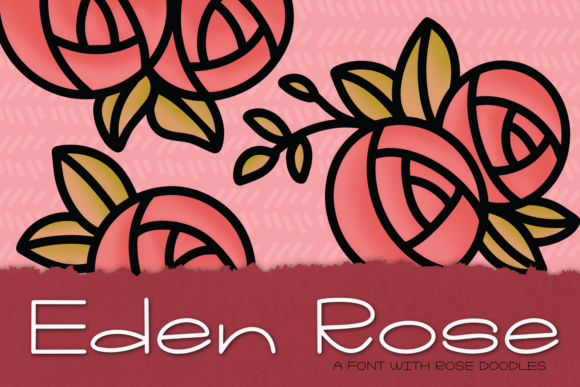
Eden Rose Font: Embrace the Beauty of Nature in Your Designs
In the world of typography, fonts play a crucial role in conveying emotions and setting the tone for various creative projects. Among the myriad of fonts available, Eden Rose stands out for its unique blend of modern simplicity and floral charm. This beautiful font is designed to bring a touch of natural elegance to your designs, making it perfect for a wide range of applications, from invitations and DIY projects to branding and more.
The Unique Charm of Eden Rose
Eden Rose is more than just a font; it’s an experience. Its delicate lines and soft curves are carefully crafted to evoke a sense of serenity and grace. The font’s design is inspired by the beauty of roses, with a modern twist that makes it versatile and easy to use. Whether you’re creating a heartfelt invitation, a sophisticated brand logo, or a playful DIY project, Eden Rose adds a touch of natural beauty that elevates your designs.
Key Features of Eden Rose Font
- Delicate Lines and Soft Curves: The font’s design is characterized by its gentle lines and curves, which give it a soft, elegant feel.
- Modern Simplicity: Despite its floral inspiration, Eden Rose boasts a modern simplicity that makes it suitable for a wide range of design projects.
- Bonus Rose Doodles: The package includes bonus rose doodles that can be used to add an extra touch of natural charm to your designs.
- Versatile: Eden Rose is perfect for various applications, including invitations, DIY projects, branding, and more.
Perfect for Heartfelt Designs
Eden Rose is designed to help you create heartfelt designs that resonate with your audience. Its elegant and playful vibe makes it ideal for projects that require a personal touch. Here are some ways you can use Eden Rose to create beautiful designs:
Invitations
Eden Rose is perfect for creating stunning invitations for weddings, baby showers, and other special occasions. The font’s delicate lines and soft curves add a touch of elegance, while the bonus rose doodles can be used to create beautiful borders and accents.
DIY Projects
If you love DIY projects, Eden Rose is a great font to have in your collection. You can use it to create personalized gifts, such as customized mugs, t-shirts, and more. The font’s playful vibe makes it perfect for crafting and scrapbooking projects.
Branding
Eden Rose can also be used for branding projects, such as logos, packaging, and marketing materials. The font’s modern simplicity and elegant feel make it suitable for businesses that want to convey a sense of sophistication and natural beauty.
Why Choose Eden Rose?
With so many fonts available, why choose Eden Rose? Here are some reasons why Eden Rose stands out:
Unique Design
Eden Rose has a unique design that sets it apart from other fonts. Its blend of modern simplicity and floral charm makes it a versatile font that can be used for a wide range of projects.
Elegant and Playful
Eden Rose has an elegant and playful vibe that makes it perfect for creating heartfelt designs. The font’s delicate lines and soft curves add a touch of sophistication, while the bonus rose doodles add a playful touch.
Easy to Use
Eden Rose is a beautiful font that can add a touch of natural elegance to your designs. Its unique blend of modern simplicity and floral charm makes it perfect for a wide range of projects, from invitations and DIY projects to branding and more. With its delicate lines, soft curves, and bonus rose doodles, Eden Rose is a font that can help you create heartfelt designs that resonate with your audience. So why wait? Let your projects bloom with Eden Rose!
- What is Eden Rose Font? Eden Rose is a beautiful font that combines modern simplicity with floral charm.
- What is Eden Rose perfect for? Eden Rose is perfect for creating heartfelt designs, such as invitations, DIY projects, branding, and more.
- What comes with Eden Rose? Eden Rose comes with bonus rose doodles that can be used to add an extra touch of natural charm to your designs.